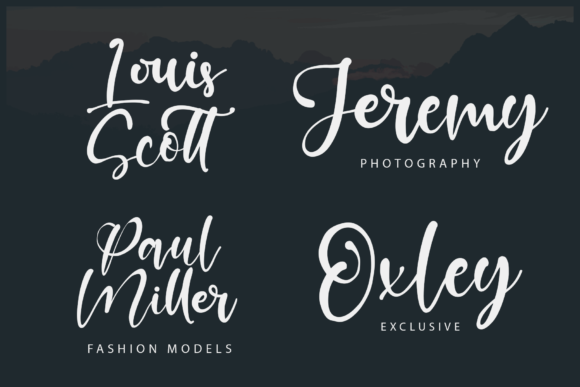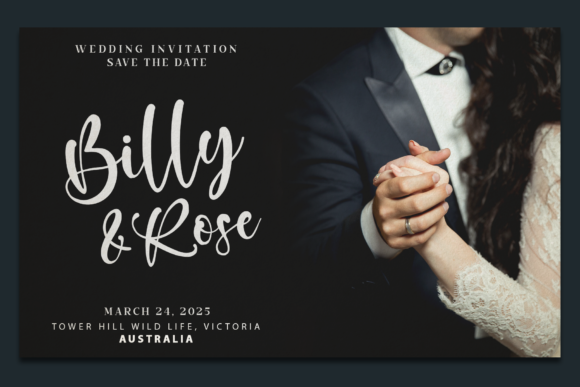
Chapter Five Font
Chapter Five is a modern and playful handwritten script font. It’s great for crafters and designers. This font is PUA encoded which means you can access all of the glyphs and swashes with ease!